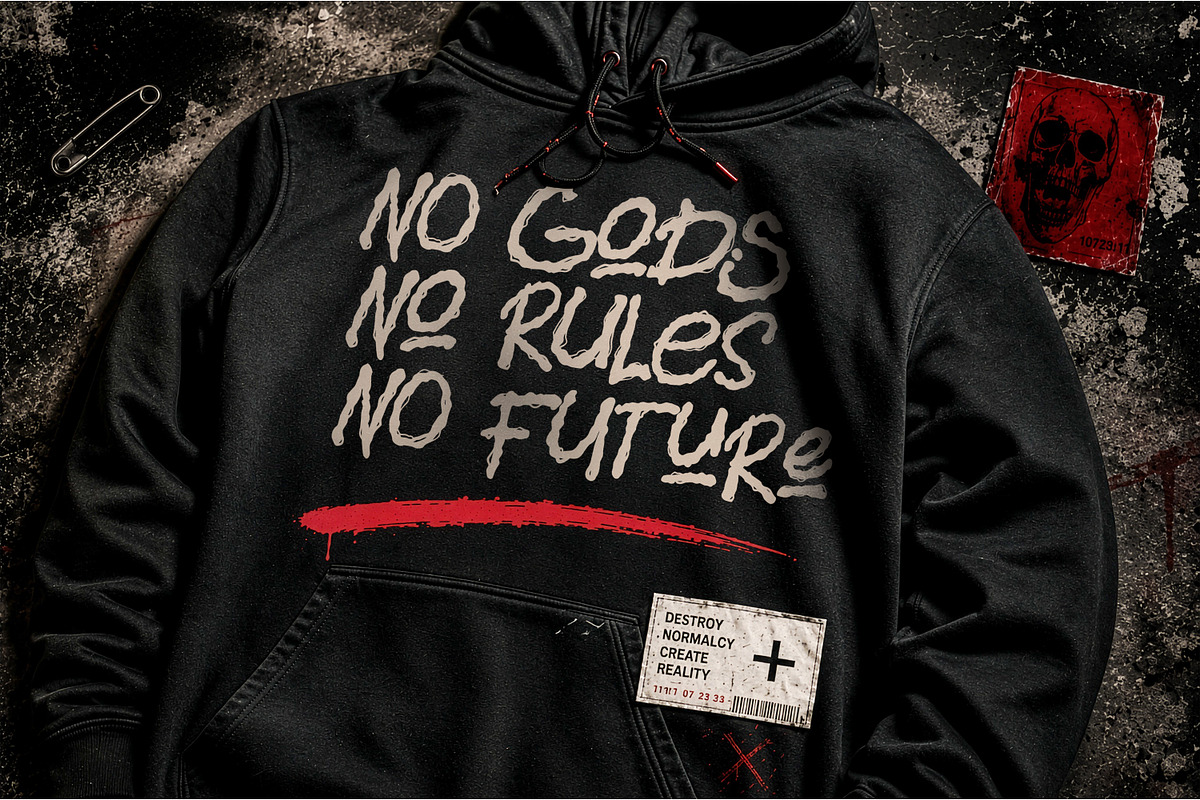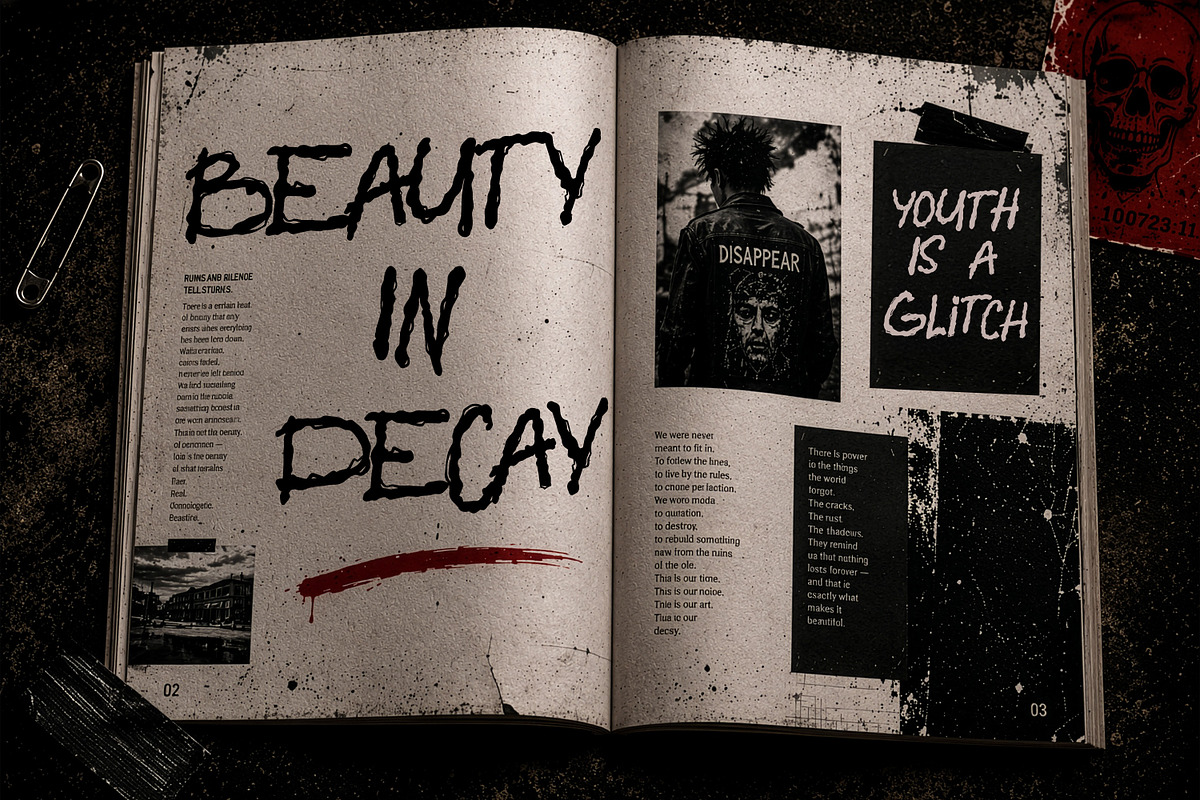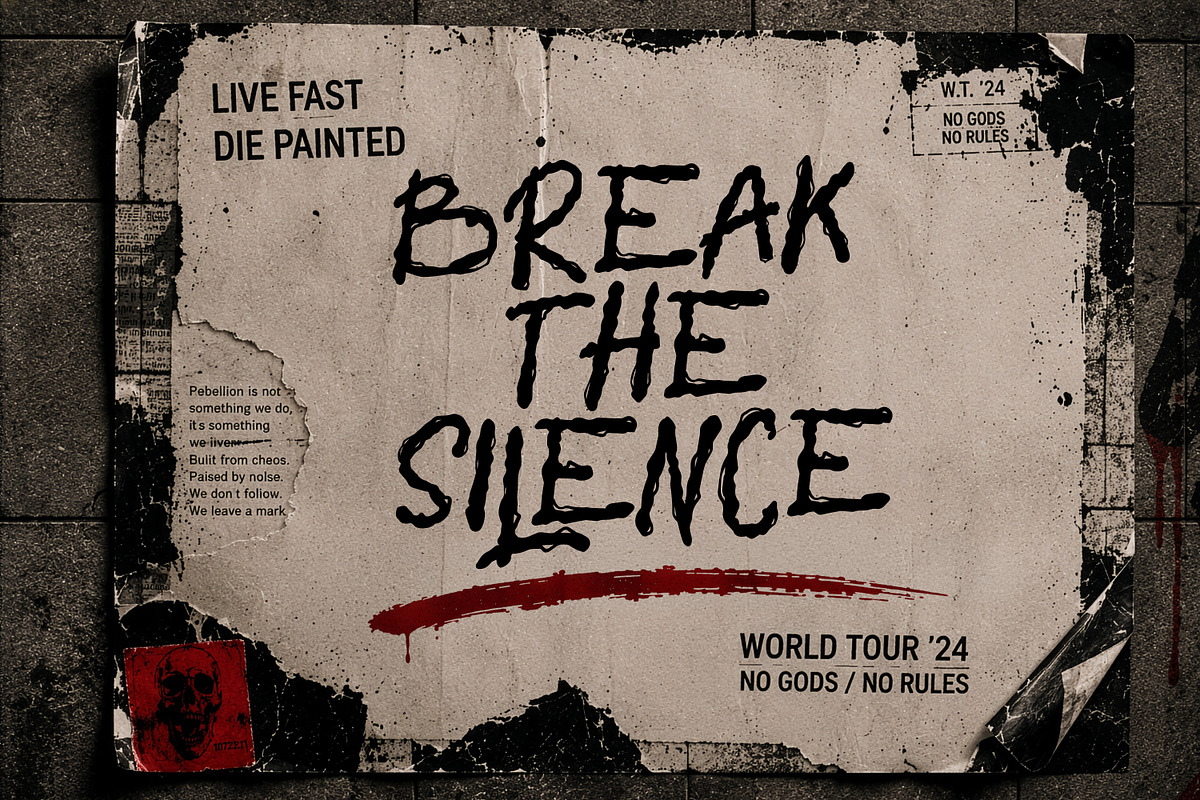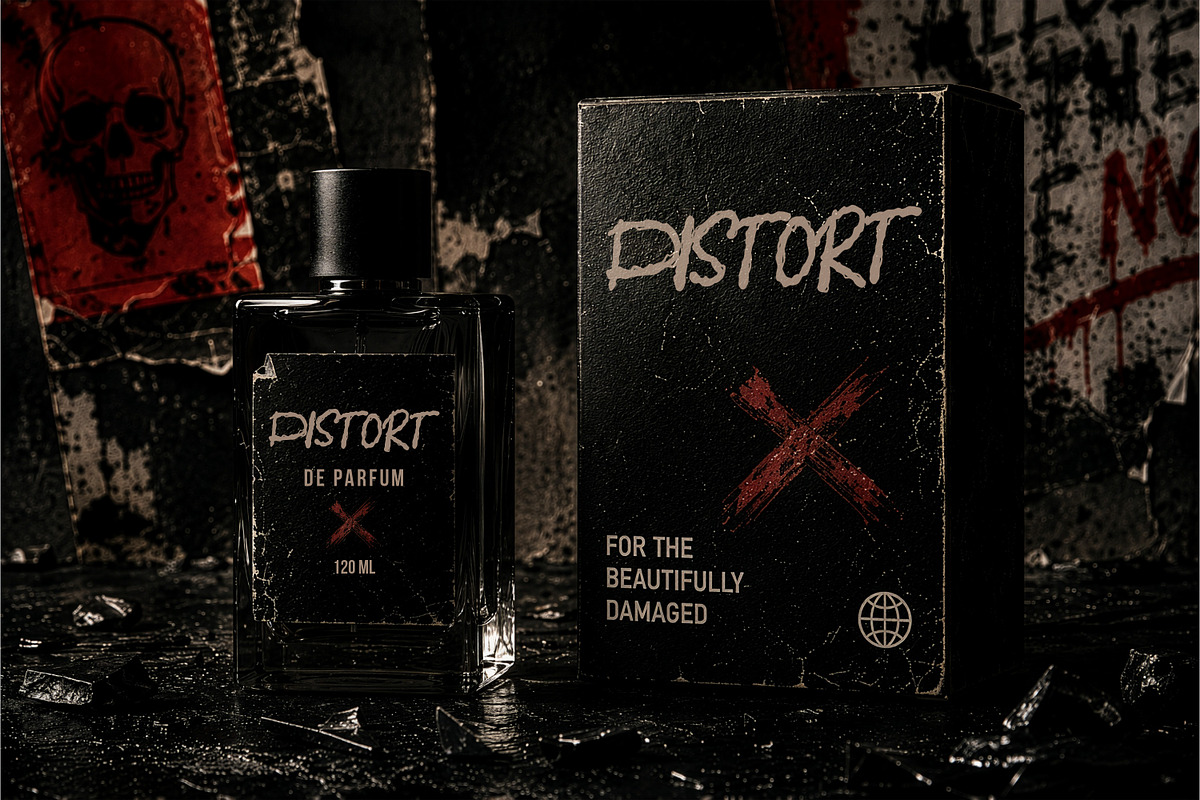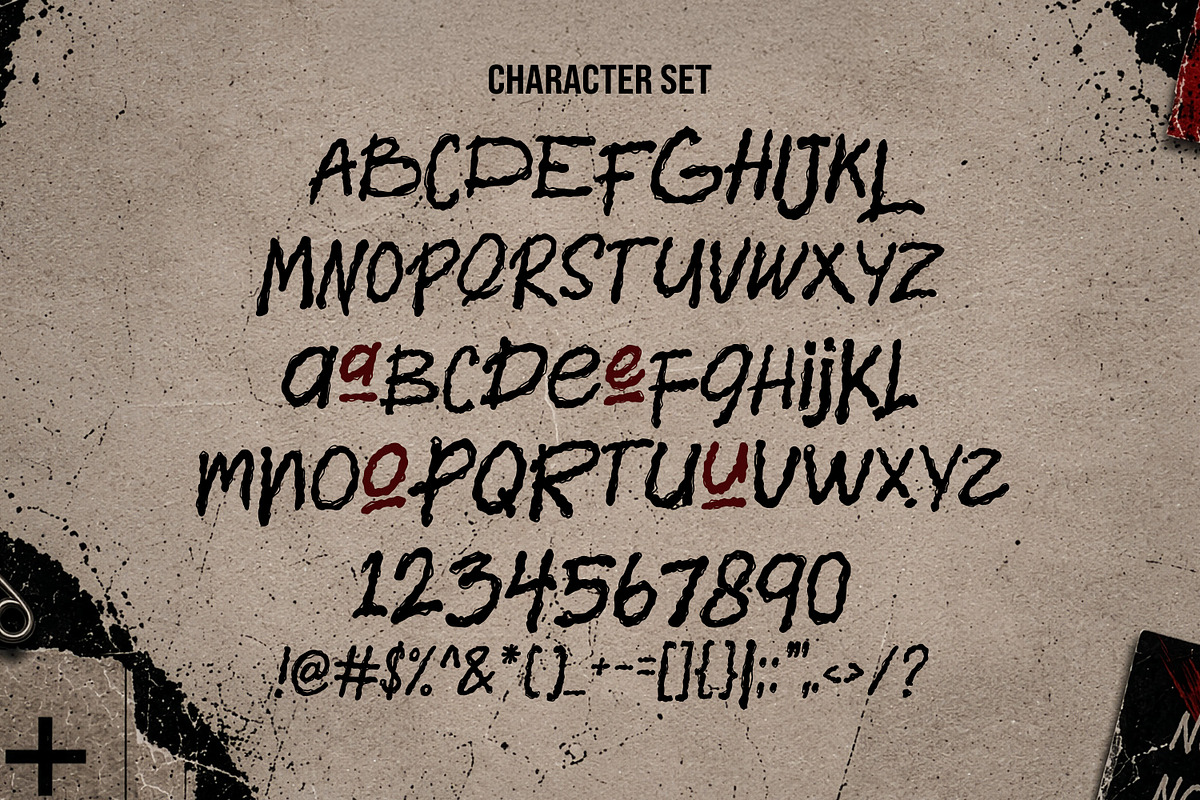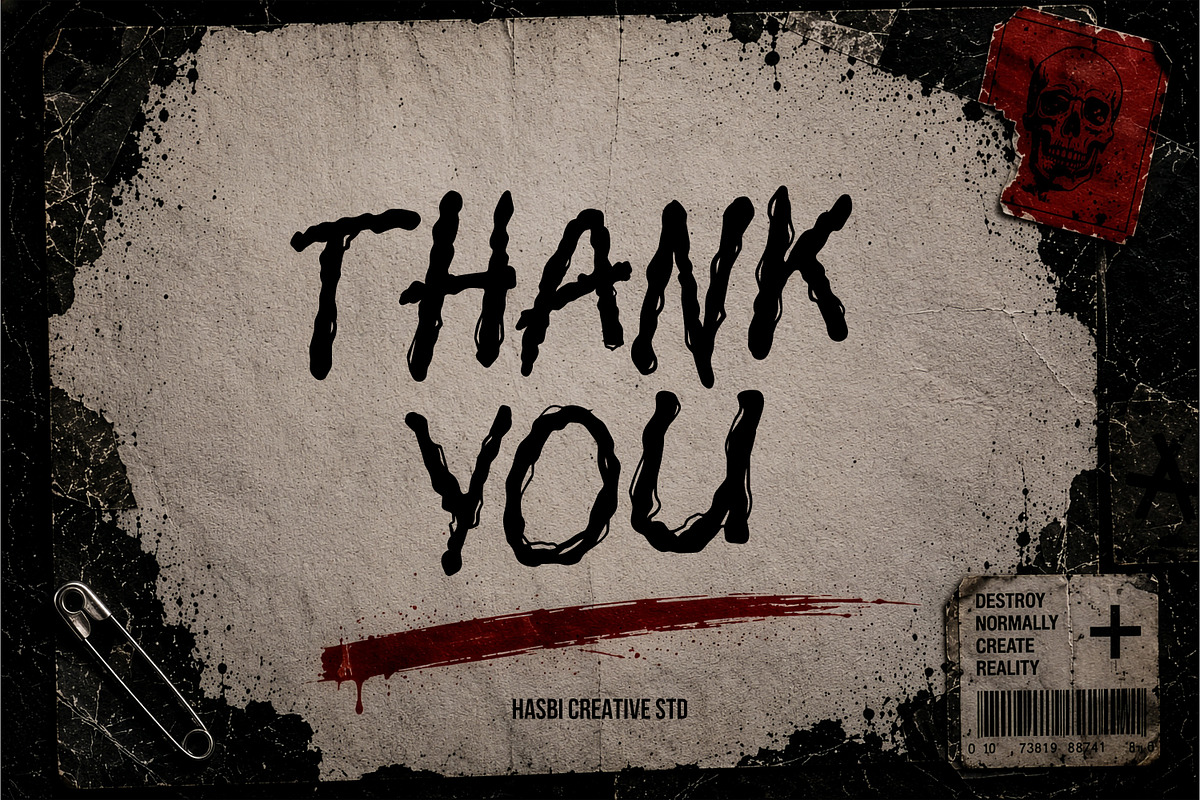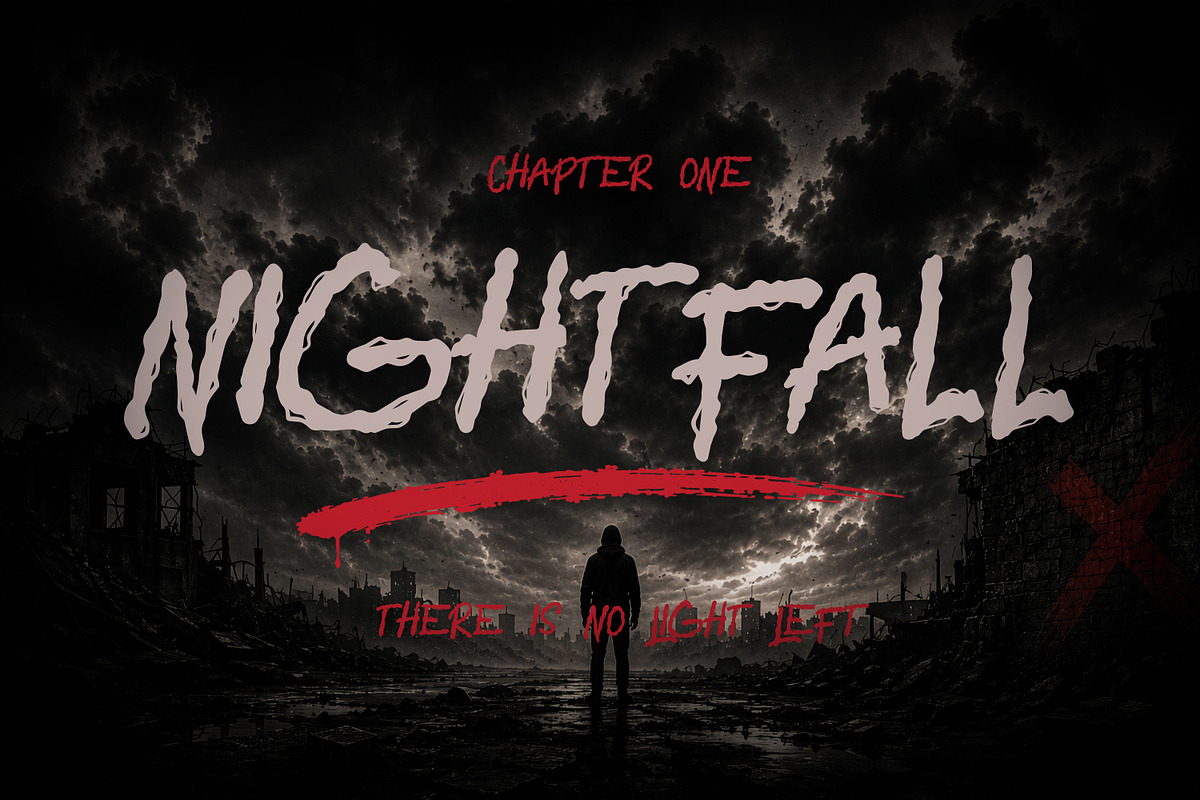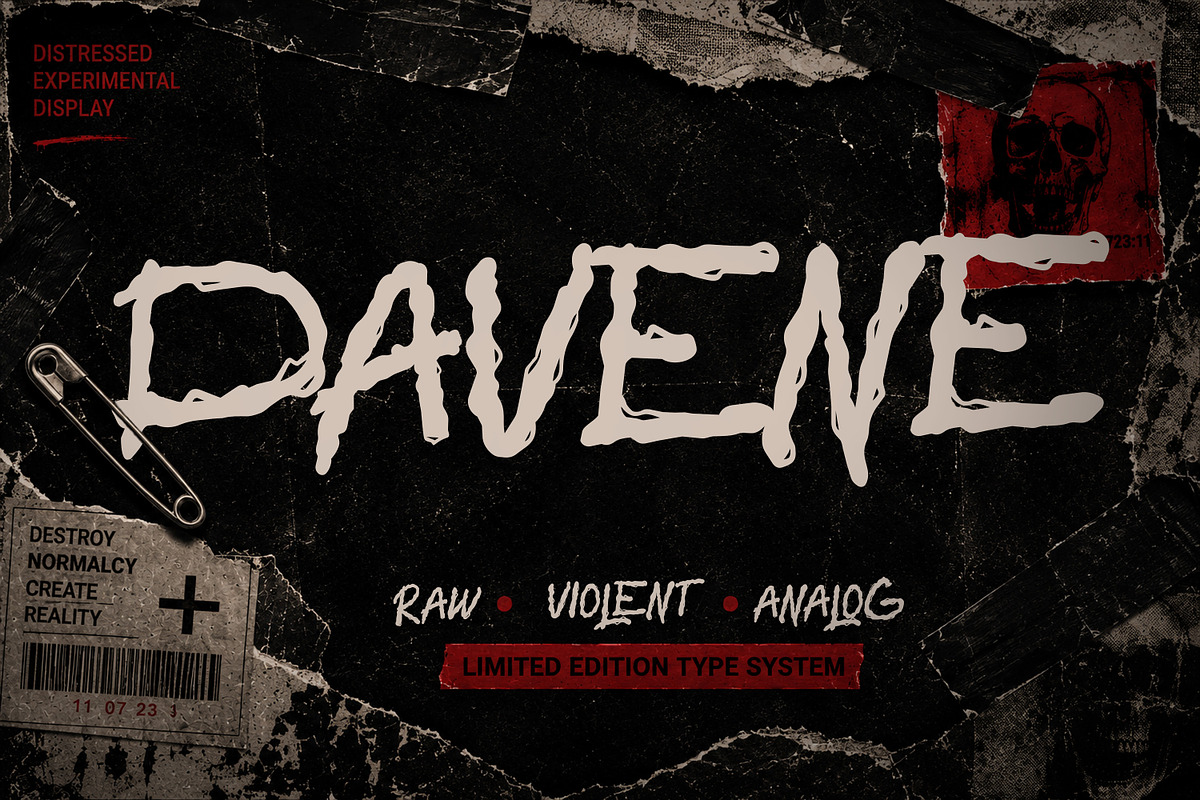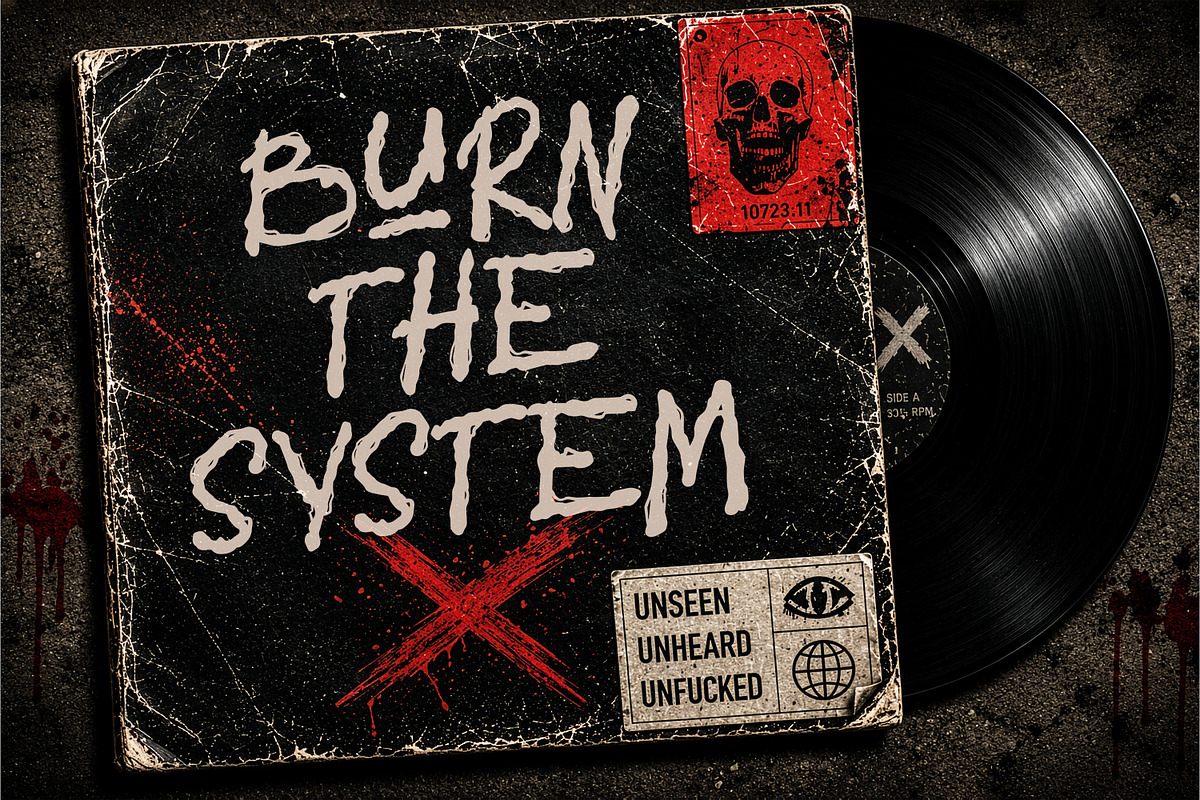
DAVENE - Distressed Display
Introducing DAVENE — a raw experimental display font with distressed handmade character.
Built with rough analog imperfections, chaotic brush energy, and aggressive handmade strokes, DAVENE captures the spirit of underground culture, punk aesthetics, DIY zines, grunge visuals, and experimental typography.
Every letter is intentionally imperfect, creating an authentic distressed appearance that feels bold, expressive, and alive. The raw texture and uneven forms give DAVENE a strong visual personality, making it ideal for projects that demand attention and emotion.
DAVENE works perfectly for:
• Music & Album Covers
• Streetwear Branding
• Punk & Grunge Posters
• Horror Visuals
• Experimental Editorials
• Clothing Designs
• Social Media Graphics
• YouTube Thumbnails
• Packaging & Merchandise
• Bold Logo Concepts
Whether you're creating chaotic underground visuals, brutal poster layouts, or rebellious branding projects, DAVENE delivers a loud, raw, and unforgettable presence.
• Uppercase & Lowercase
• Numbers & Punctuation
• Multilingual Support
• Distressed Handmade Style
• Strong Display Character
• Easy to Use
Raw. Violent. Analog.